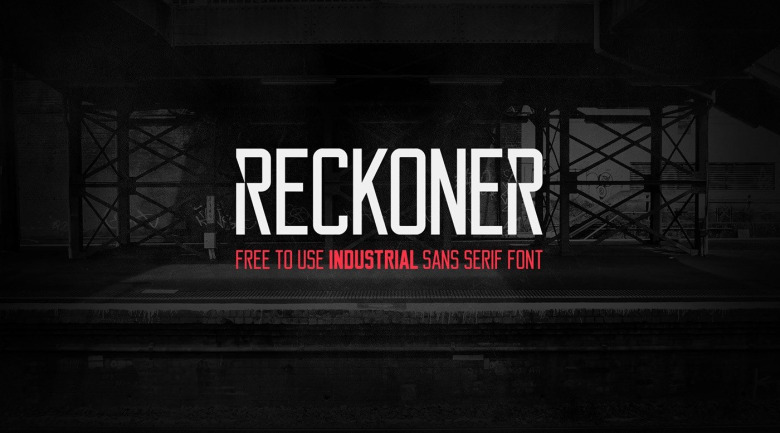
Reckoner Font
Reckoner is a stencil display font manufactured by Alex Dale. Strong and delicate it makes a statement when used. Drawing inspiration from popular industrial sans serif typefaces such as Bebas Neue, Alegre Sans & Dharma Gothic. Reckoner is currently available in 2 weights (for now). This typeface is ideal for logotypes & headings.